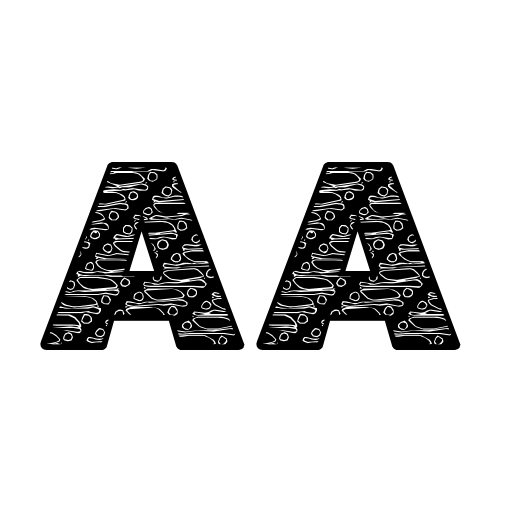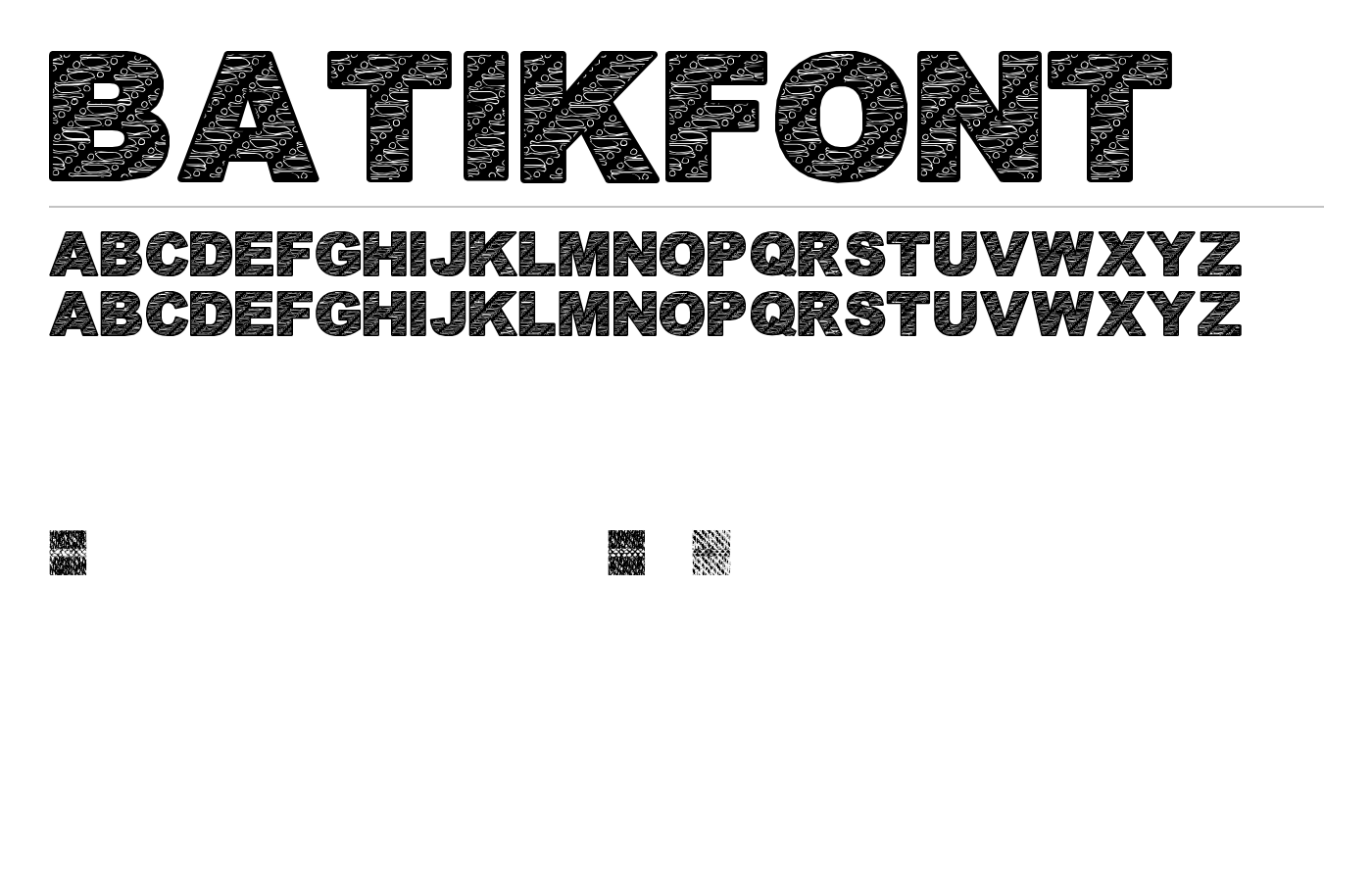
BatikFont1 is a bold, decorative sans serif typeface featuring an intricate, textured pattern reminiscent of traditional batik fabric designs. Its strong, uniform letterforms combined with lively internal detailing make it ideal for attention-grabbing headlines, packaging, and branding that seek a handcrafted, artistic vibe. This font works best where a unique, cultural, and creative atmosphere is desired, adding character without sacrificing legibility.
BatikFont1 Font